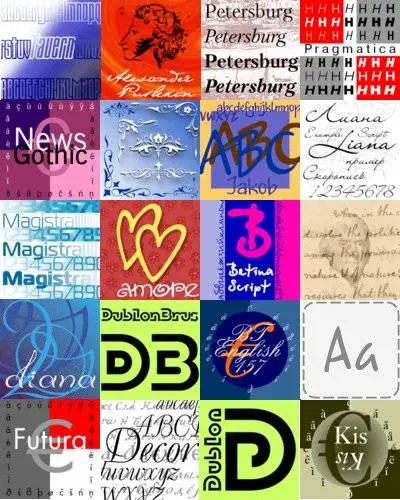
ParaType was established as a font department of ParaGraph International in 1989 in Moscow, Russia. At that time in the Soviet Union all typeface development was concentrated in one rather small group which belonged to a state research institute, Polygraphmash. It had the most complete and in fact the only one collection of Cyrillic typefaces. The collection included revivals of Cyrillic typefaces developed by Berthold and Lehmann type foundries established at the end of 19th century in St. Petersburg and artworks of Vadim Lazurski, Galina Bannikova, Nikolay Kudryashov and other masters of type and graphic design of Soviet time.
ParaType became the first privately-owned type foundry in many years. A license agreement with Polygraphmash allows ParaType to manufacture and distribute their typefaces. Most of Polygraphmash staff designers soon moved to ParaType.
In the beginning of 1998 ParaType was separated from the parent company and established two companies: ParaType Inc. in California and ParaType, Ltd. in Russia that inherited typefaces and font software from ParaGraph. Both companies are directed by Emil Yakupov, former head of the font department of ParaGraph.
ParaType apply a multilingual approach to type design. Most of the fonts of the last years were developed from the very beginning for wide varieties of alphabets. ParaType’s standard character set covers Western & Central European, and Cyrillic languages. The ParaType collection also contains Arabic, Armenian, Georgian and Greek fonts.
The main directions of ParaType design are: i) new original typefaces for the Russian design and publishing community; ii) revivals of historical Russian typefaces; iii) Cyrillic extensions of the best of Latin typefaces.
ParaType pays particular attention to screen quality of its fonts. Most ParaType fonts are hinted manually and many of them are even delta hinted.
In addition to fonts, ParaType develops software utilities for multilingual typing. The ParaWin series of products extends the language support of Windows and make it possible to work with multilingual documents.